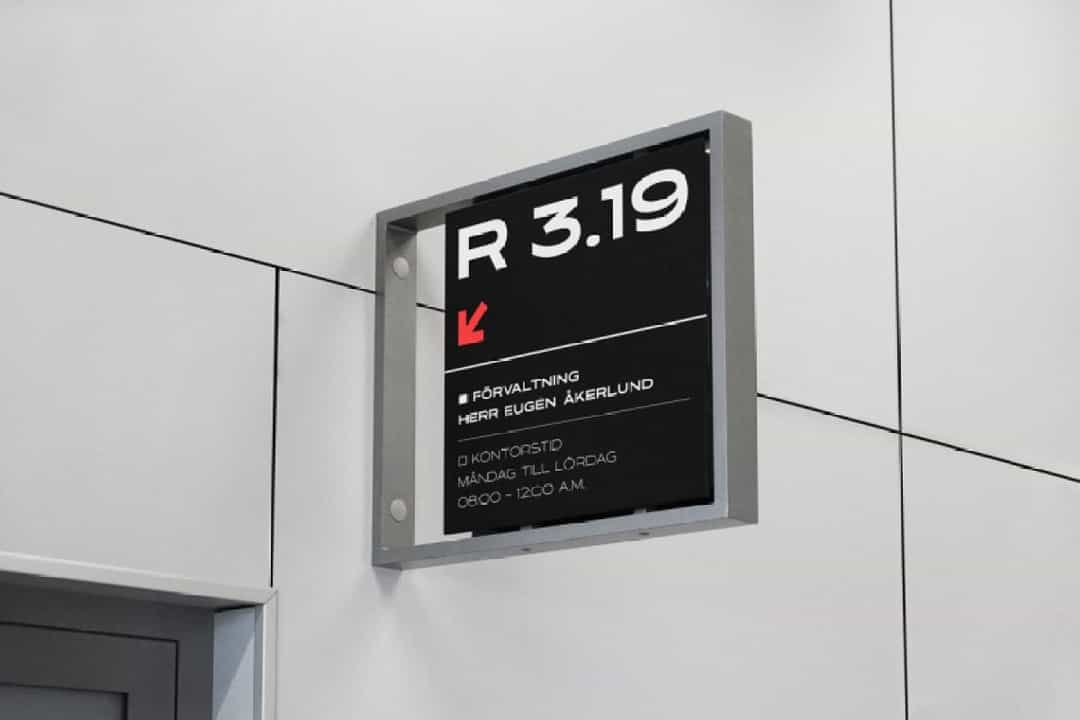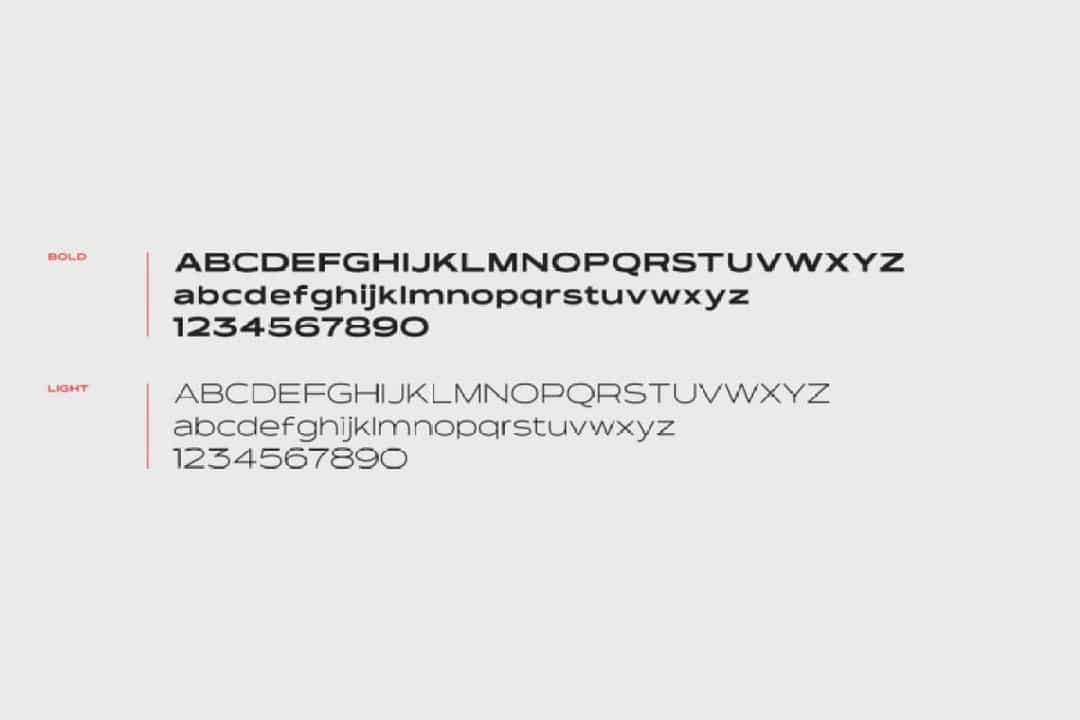
”Kinetic” – a highly comprehensive font based on the principles of the contemporary globalized world and dynamic movement – has been launched; it offers two weights, and the obliques fit the regulars perfectly. Kinetic contains the approach of minimalism which is characteristic for neo-grotesque with such elements as clear cut of the strokes, clear and distinct lines, classical geometric variation and contrast of these elements.